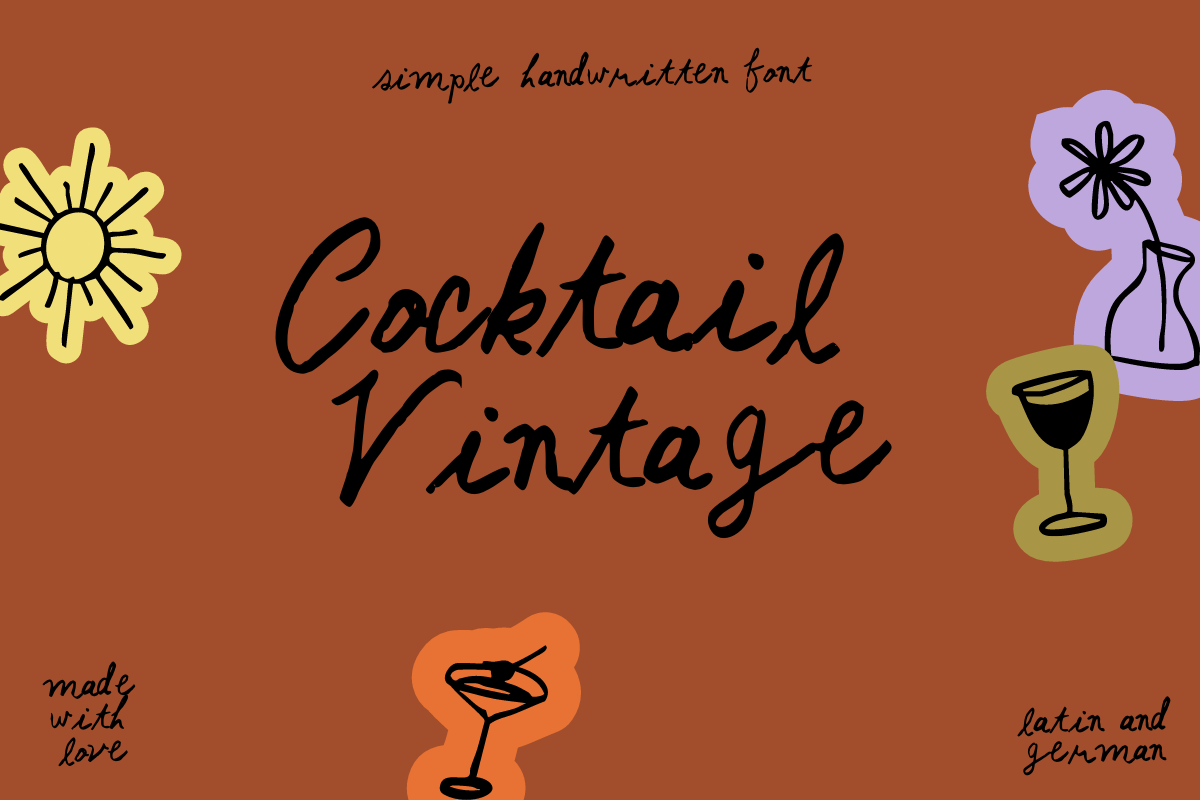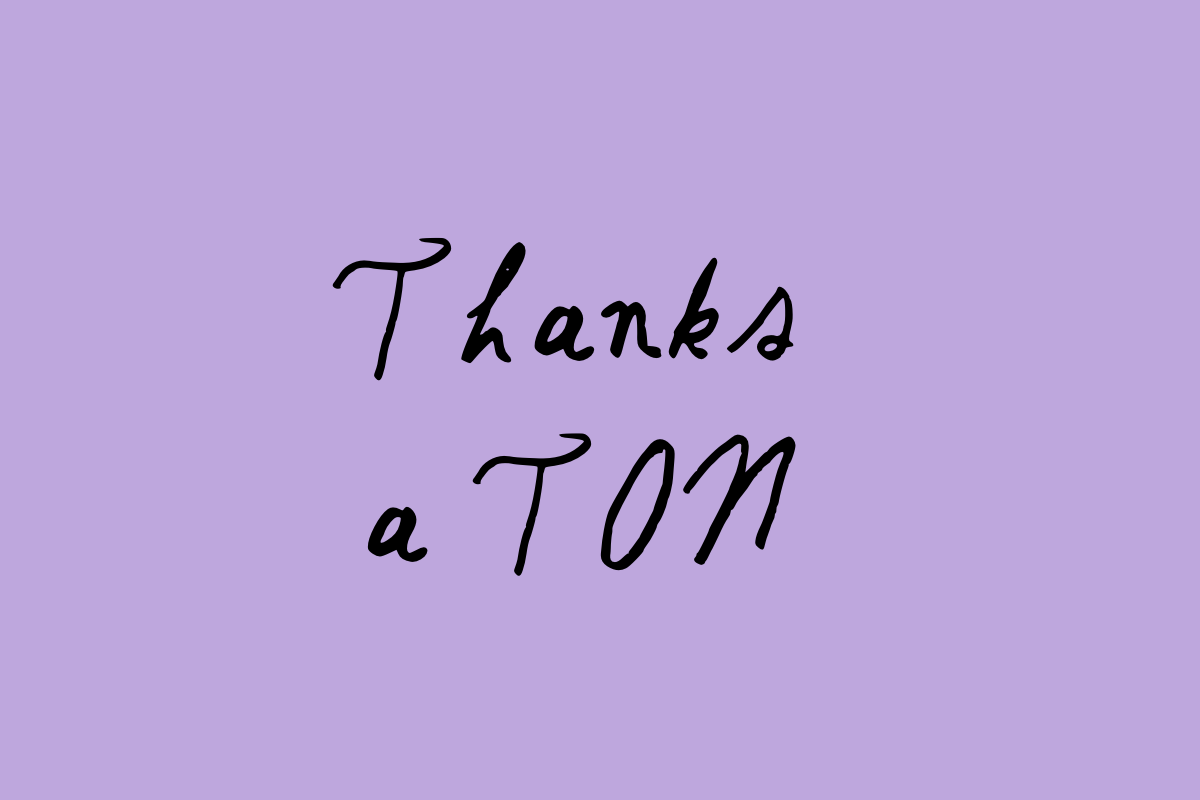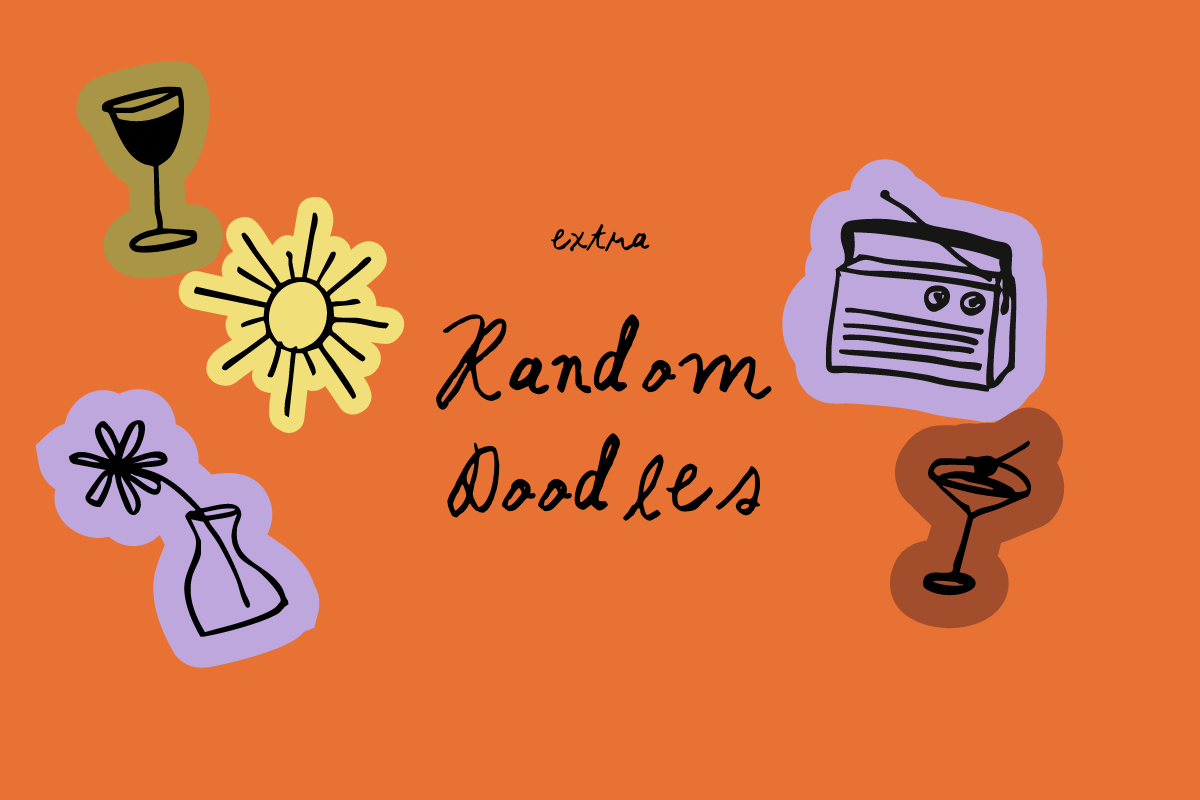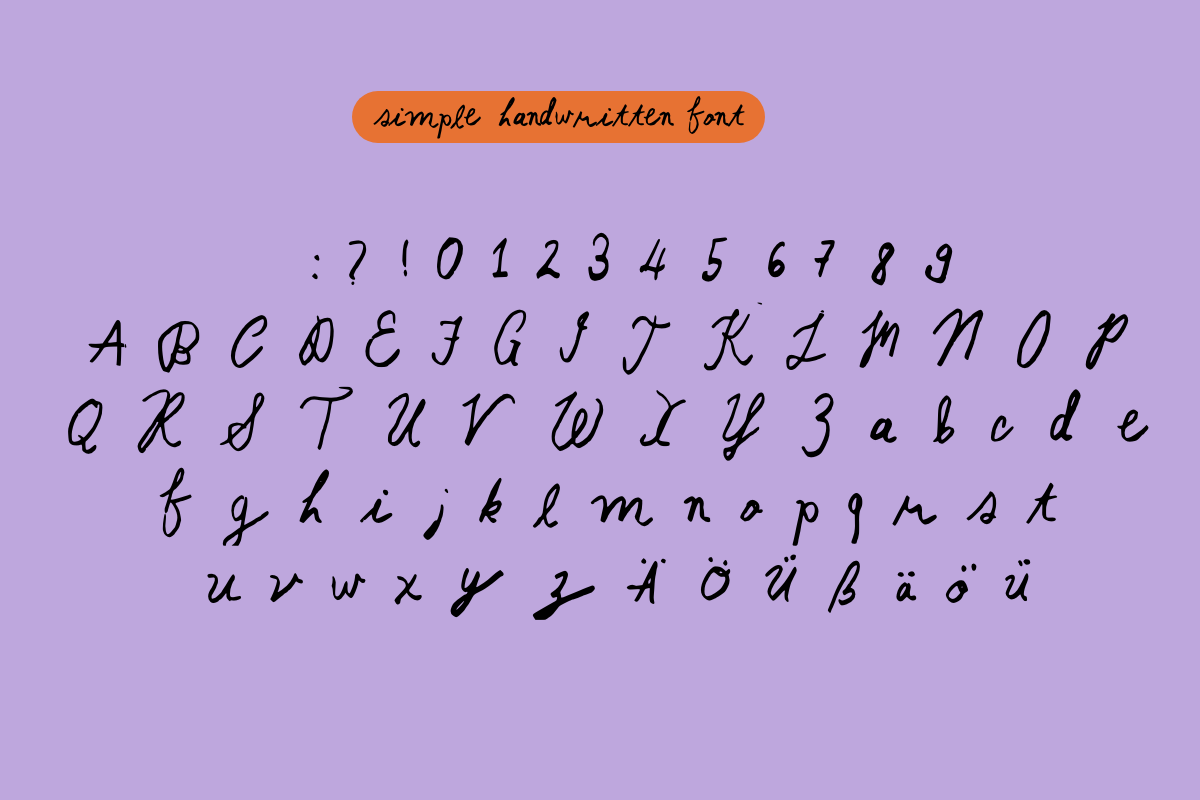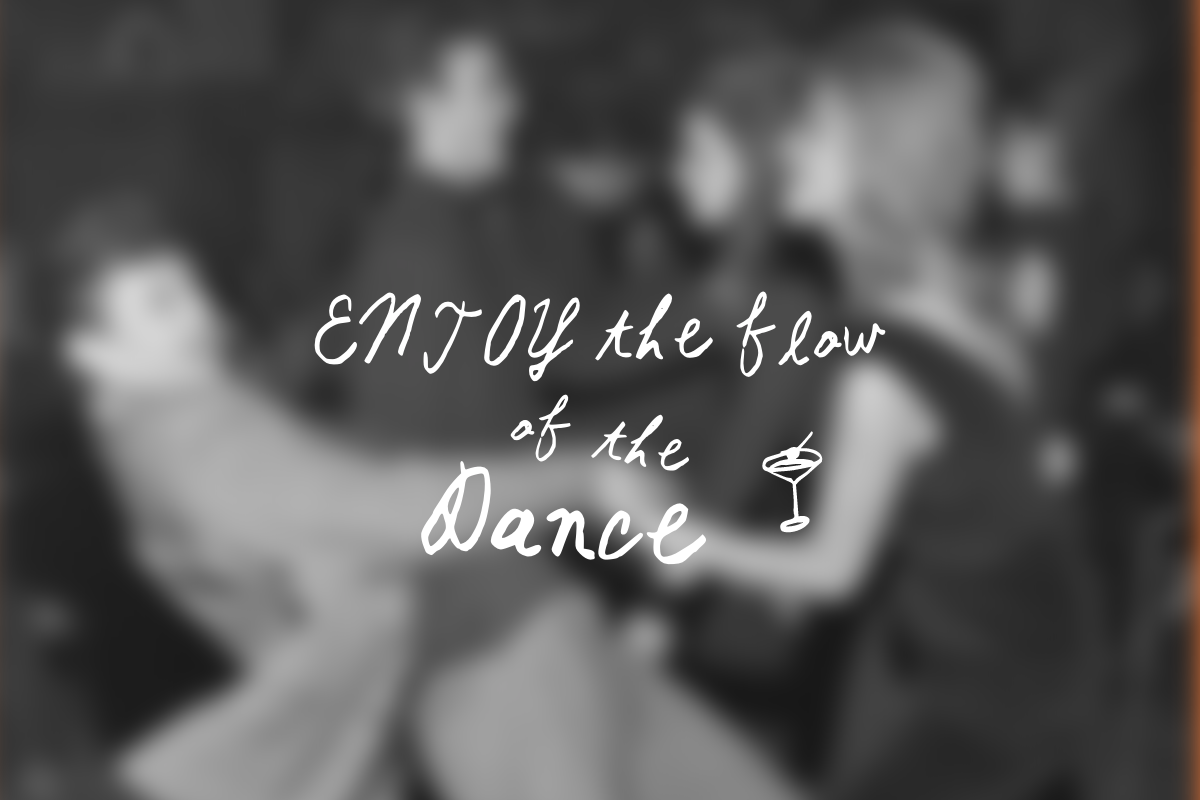
Vintage Cocktail - Handwritten Font
Meet Cocktail Vintage Font
Cocktail Vintage is a playful handwritten script font inspired by old cocktail menus, handwritten place cards and the magic of warm evenings spent with friends.
Its flowing letterforms and natural imperfections make it perfect for projects that need personality, elegance and a little bit of fun.
Perfect for
• Branding and logos • Packaging and labels • Wedding stationery • Menus and bar signage • Social media graphics • Event invitations • Posters and prints • Greeting cards • Quotes and headlines
Uppercase letters
Lowercase letters
Numerals (0–9)
Punctuation: ! ? :
German characters (Ä Ö Ü ä ö ü ß)
Bonus hand-drawn doodles (Vector)